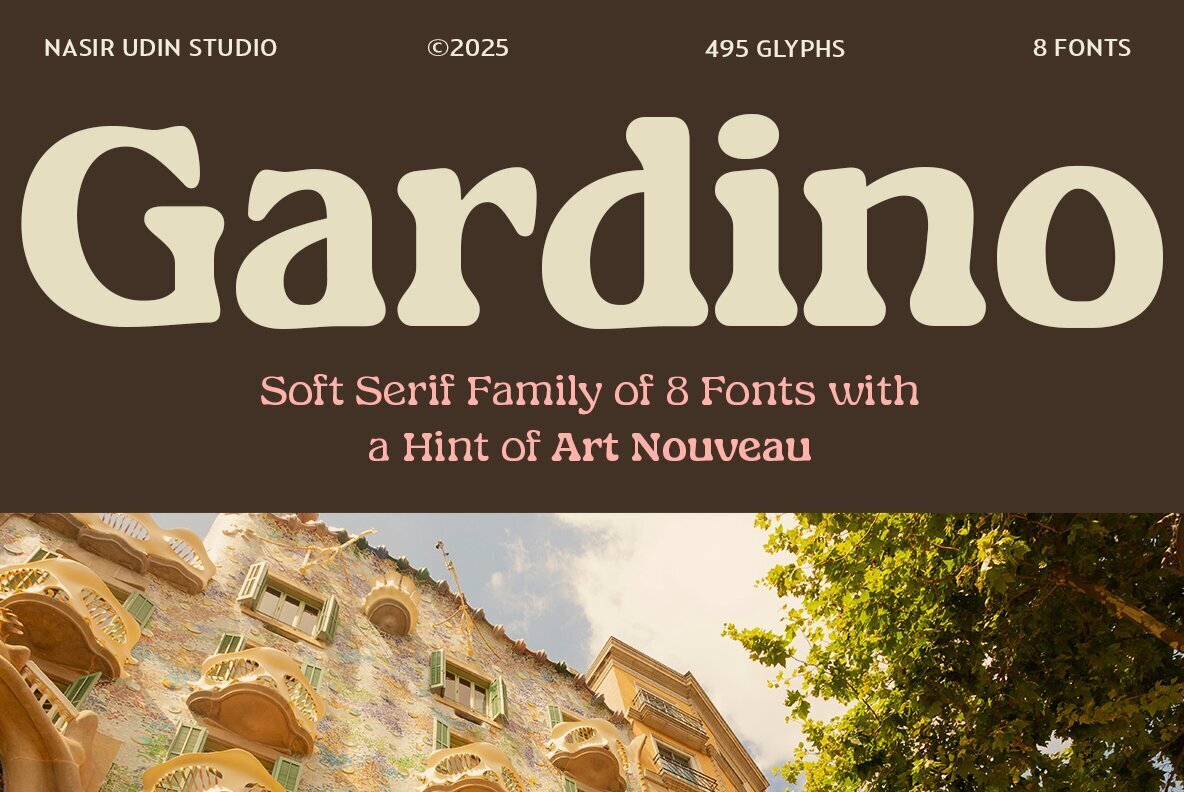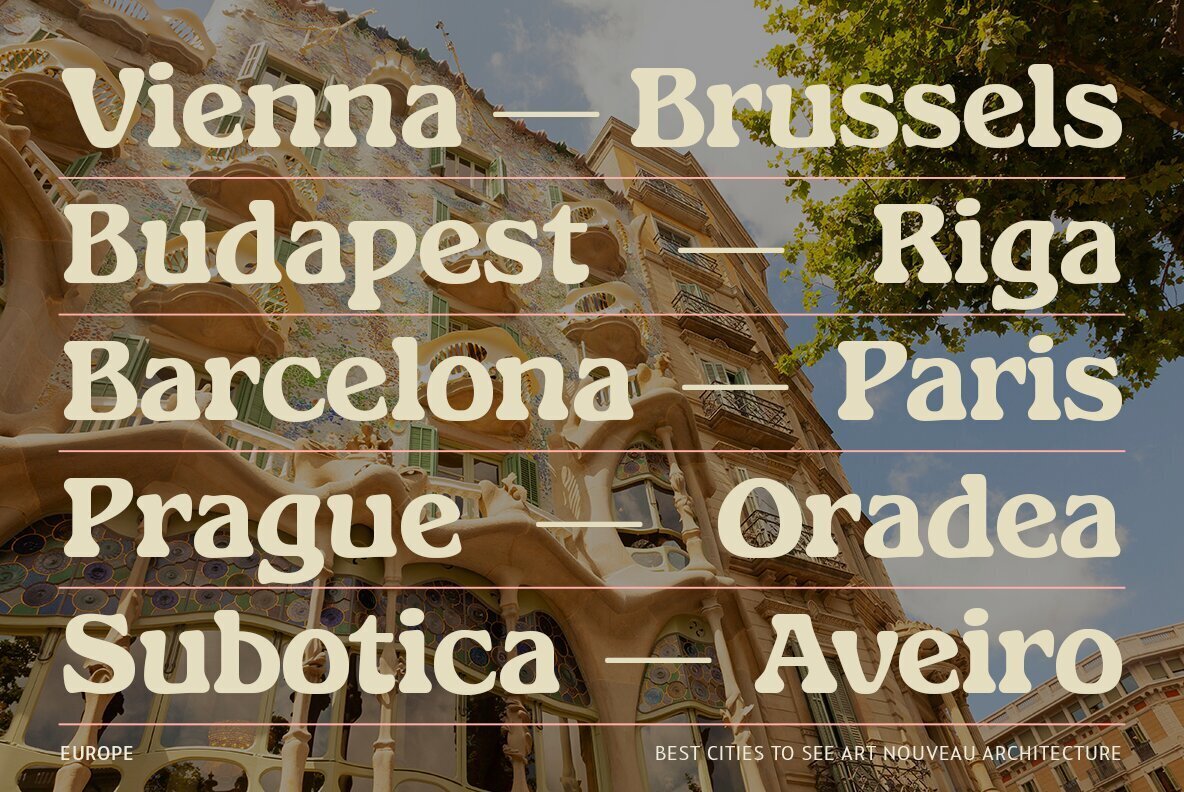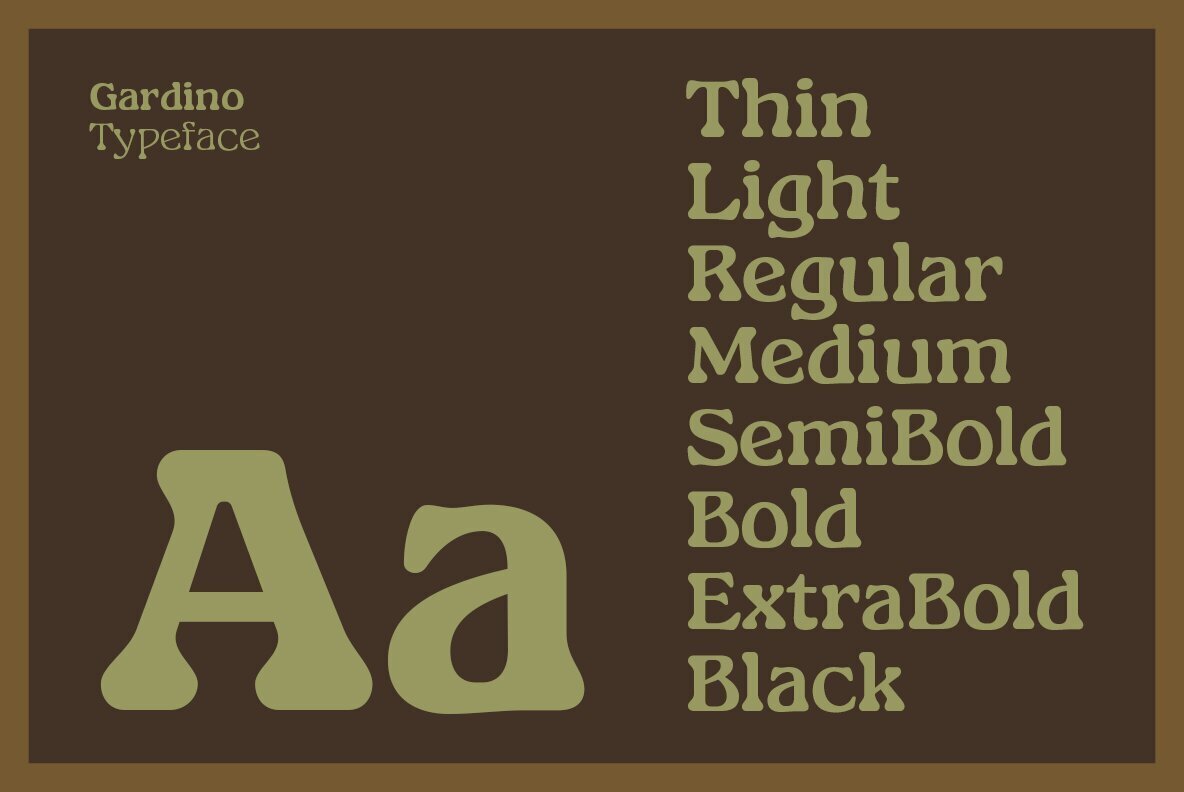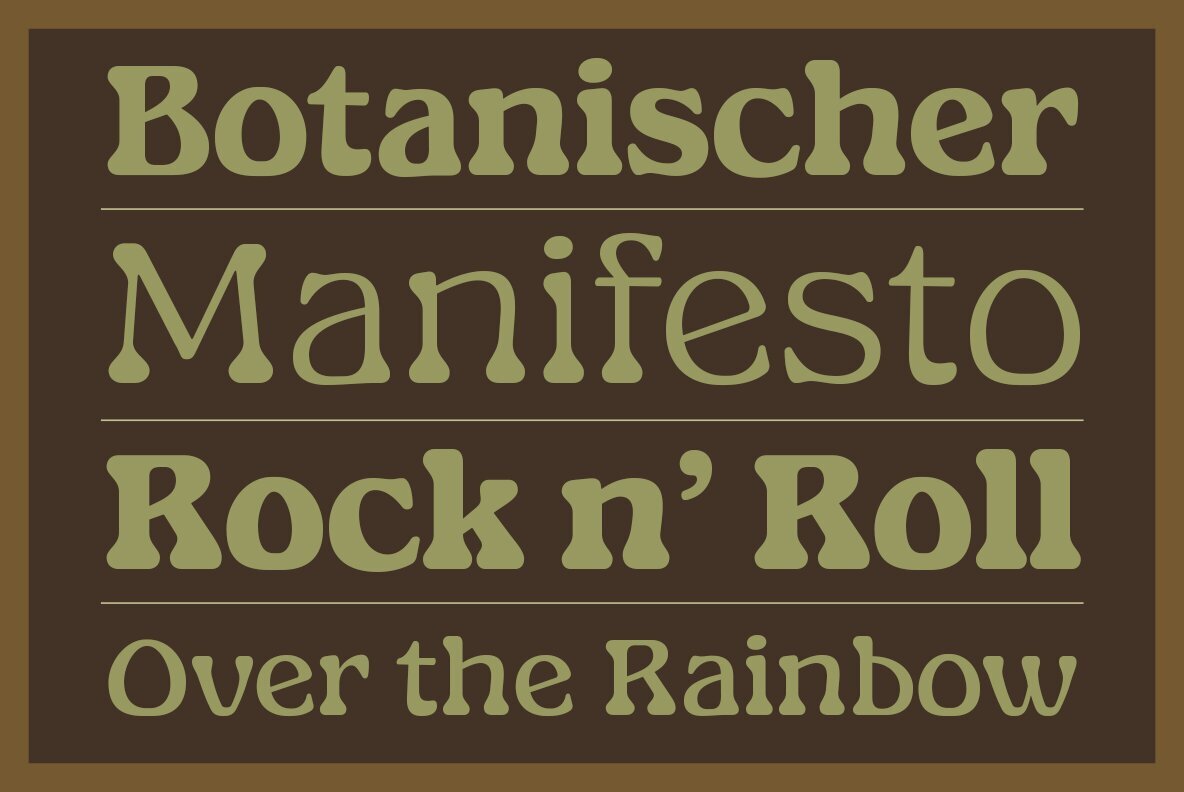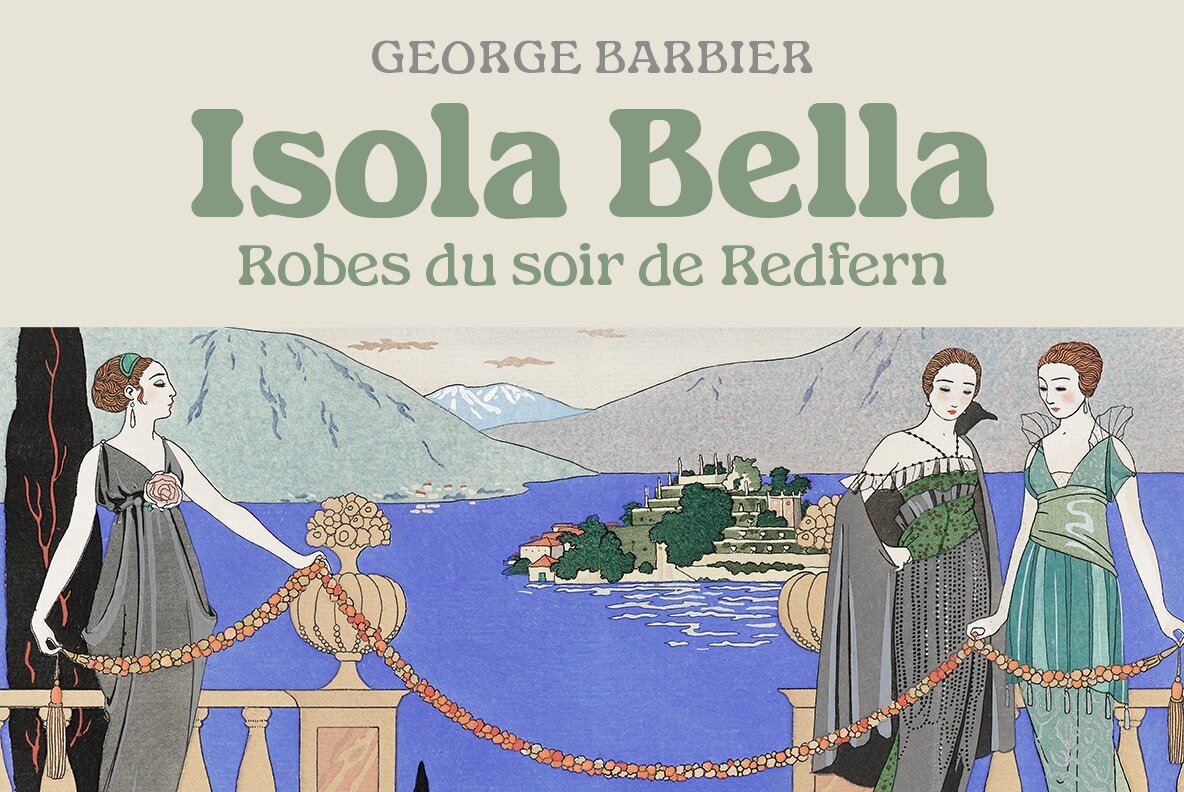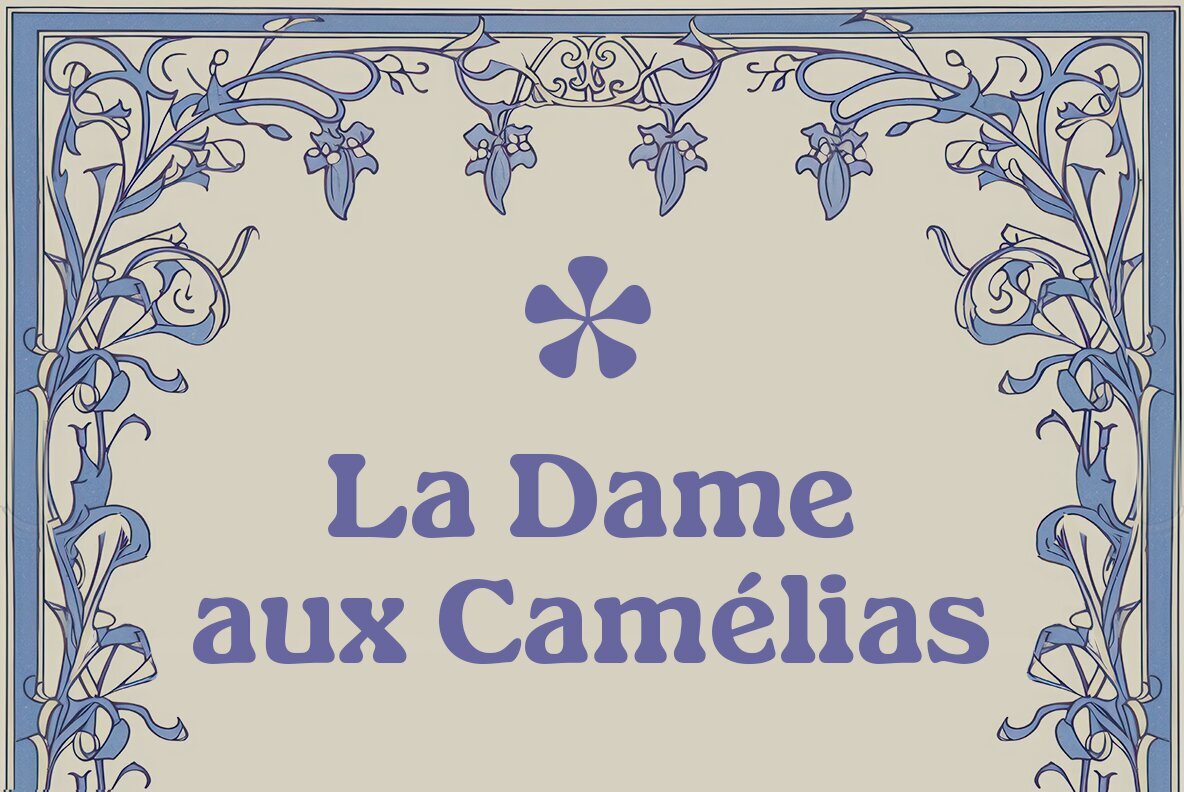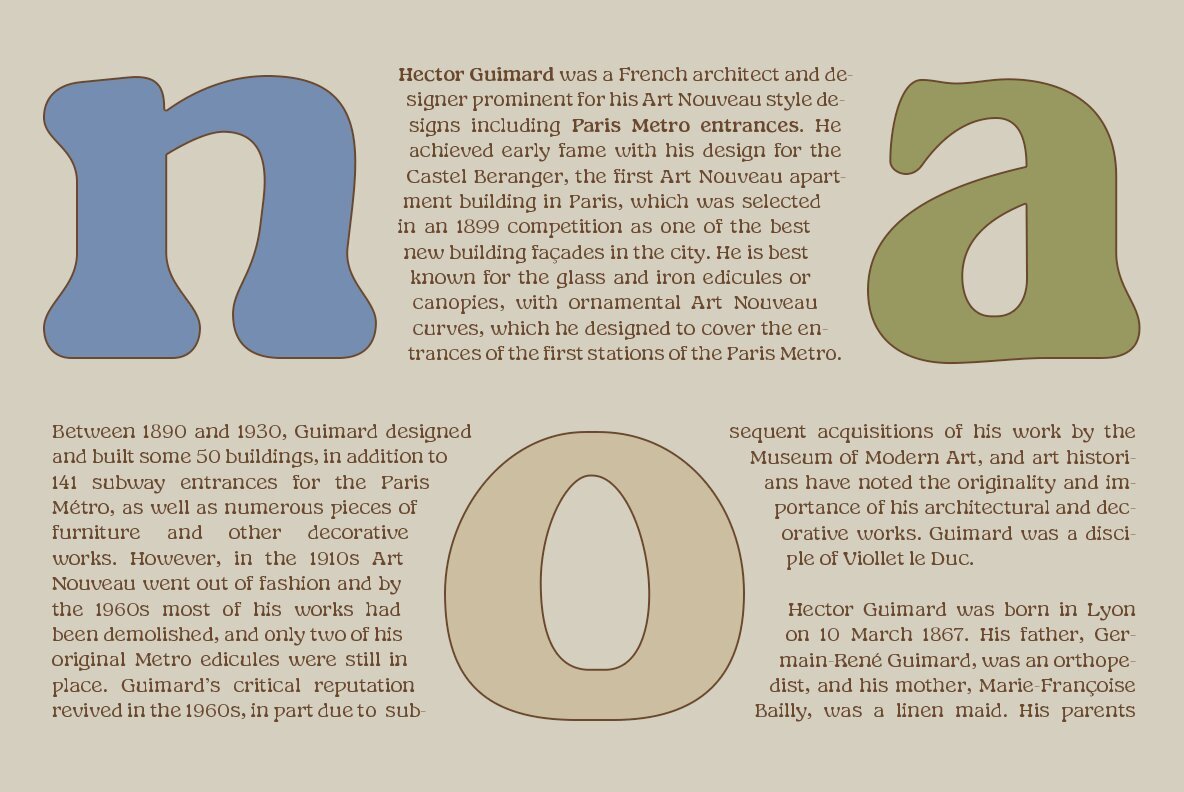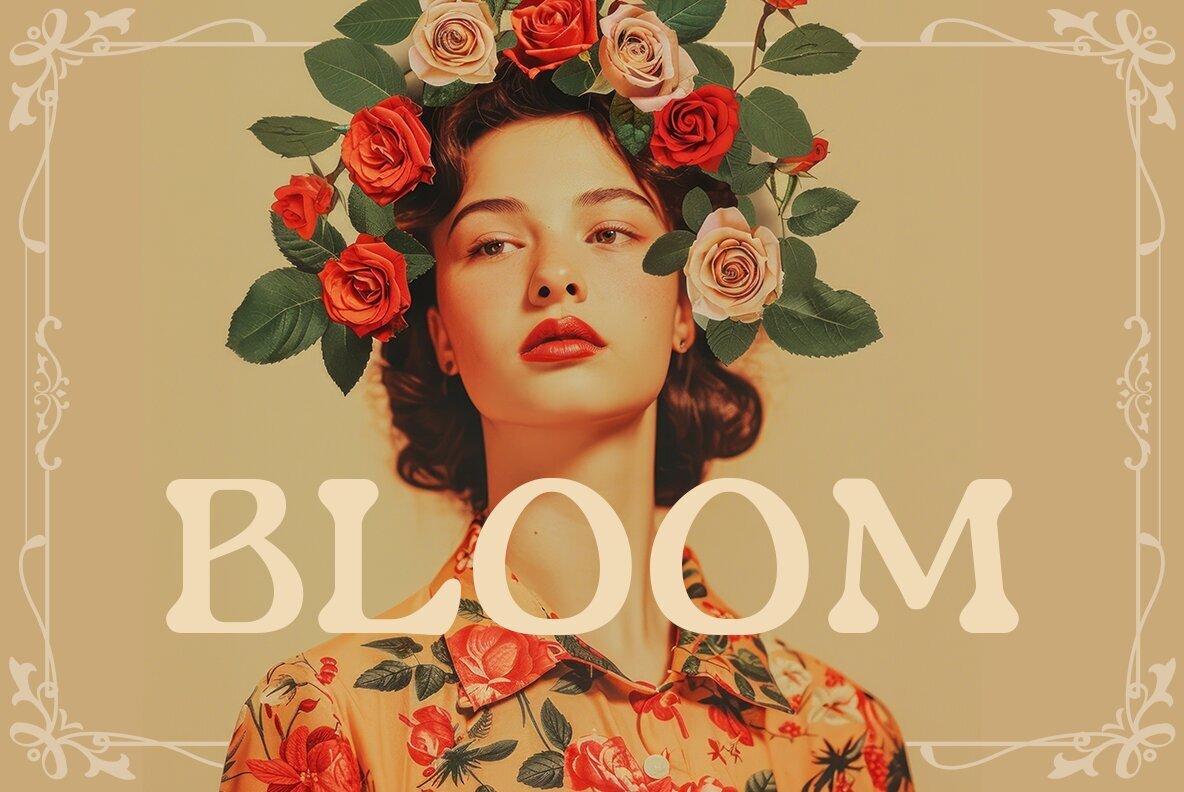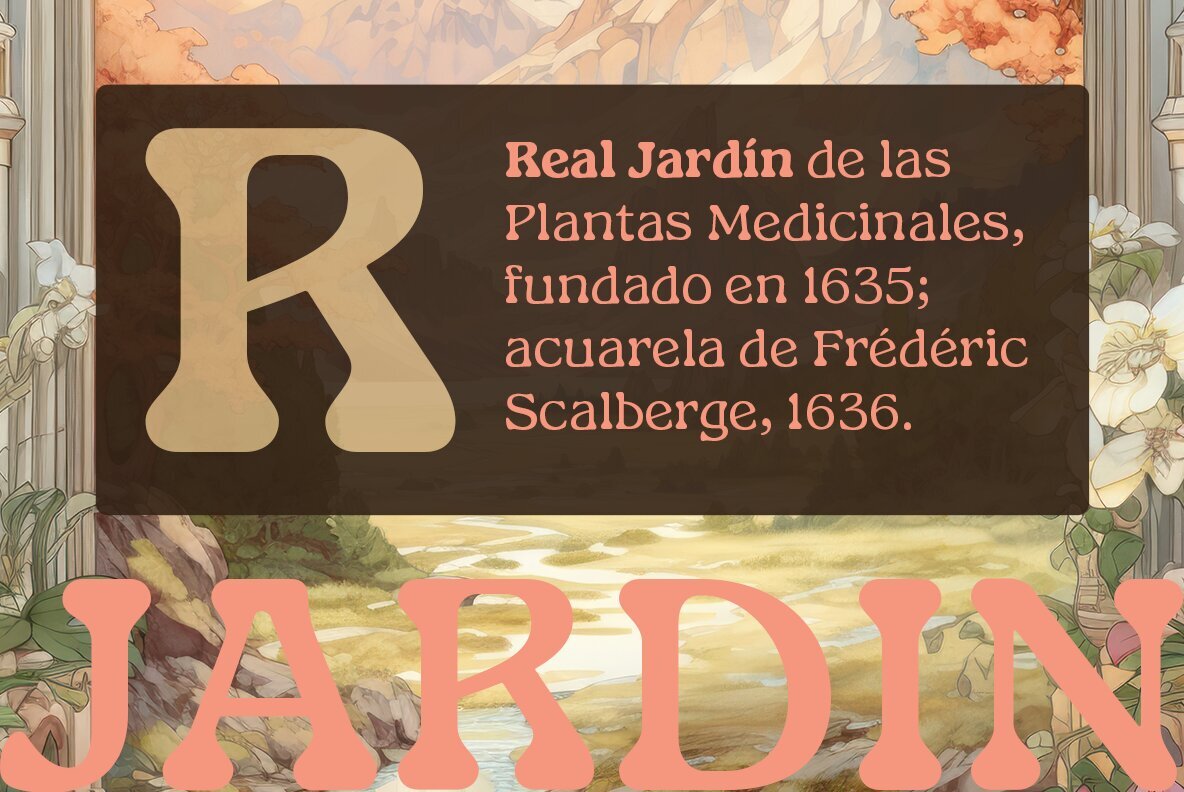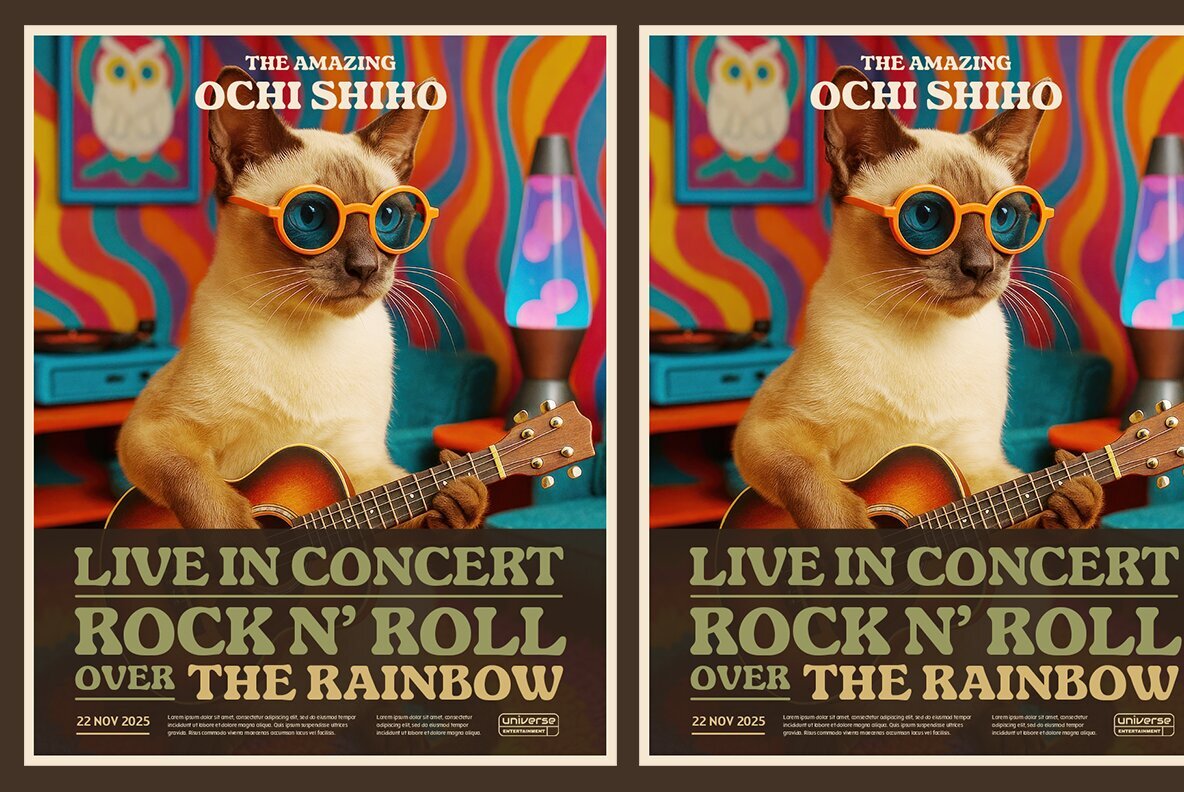
Gardino Font
Gardino draws its inspiration from the Art Nouveau period, channeling the expressive energy of early twentieth-century hand-lettered works. Echoes of influential typefaces such as Radium, Arnold Bocklin, and Hobo inform its distinctive character. Each of the eight weights—ranging from thin to black—reflects this heritage while providing contemporary versatility for today’s design landscape. This serif family offers a diverse stylistic palette for both headlines and short passages, adapting seamlessly to editorial layouts, book covers, and brand identities. The broad weight spectrum supports varied moods, making Gardino a sound option for creative projects that require a striking typographic presence or subtle nod to vintage aesthetics.Gardino: Art Nouveau-Inspired Serif Family With Eight Weights